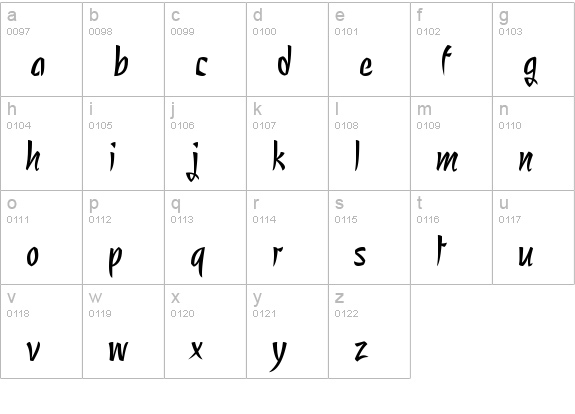
Nagomi Font Details
Nagomi font is a beautifully crafted typeface that exudes elegance and sophistication. With its graceful curves and stylish letterforms, Nagomi font is perfect for adding a touch of class to any design project. Whether you're creating invitations, logos, or marketing materials, this versatile font is sure to make a lasting impression. The best part? Nagomi font is completely free to download! You can easily access this stunning typeface at FontsMarket.com, where you can add it to your collection without any cost. Don't miss out on the opportunity to enhance your designs with the timeless beauty of Nagomi font. Download it today and elevate your creations to the next level.